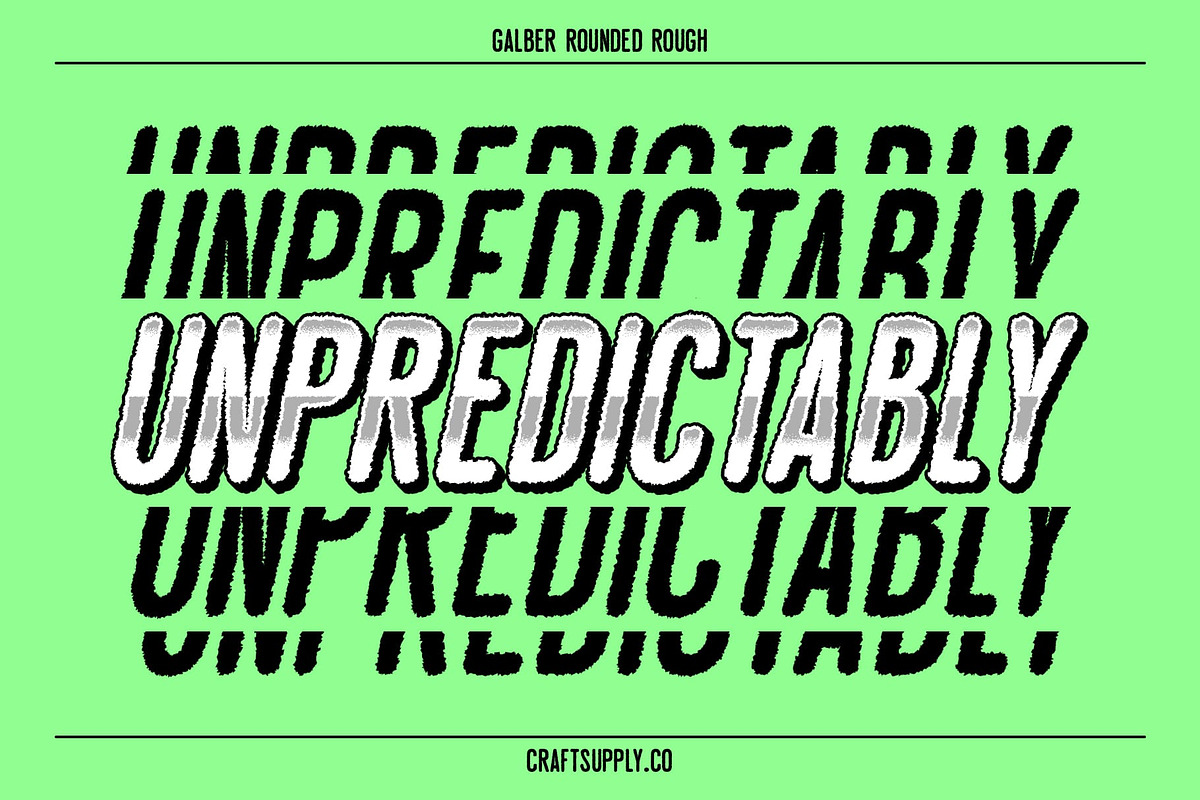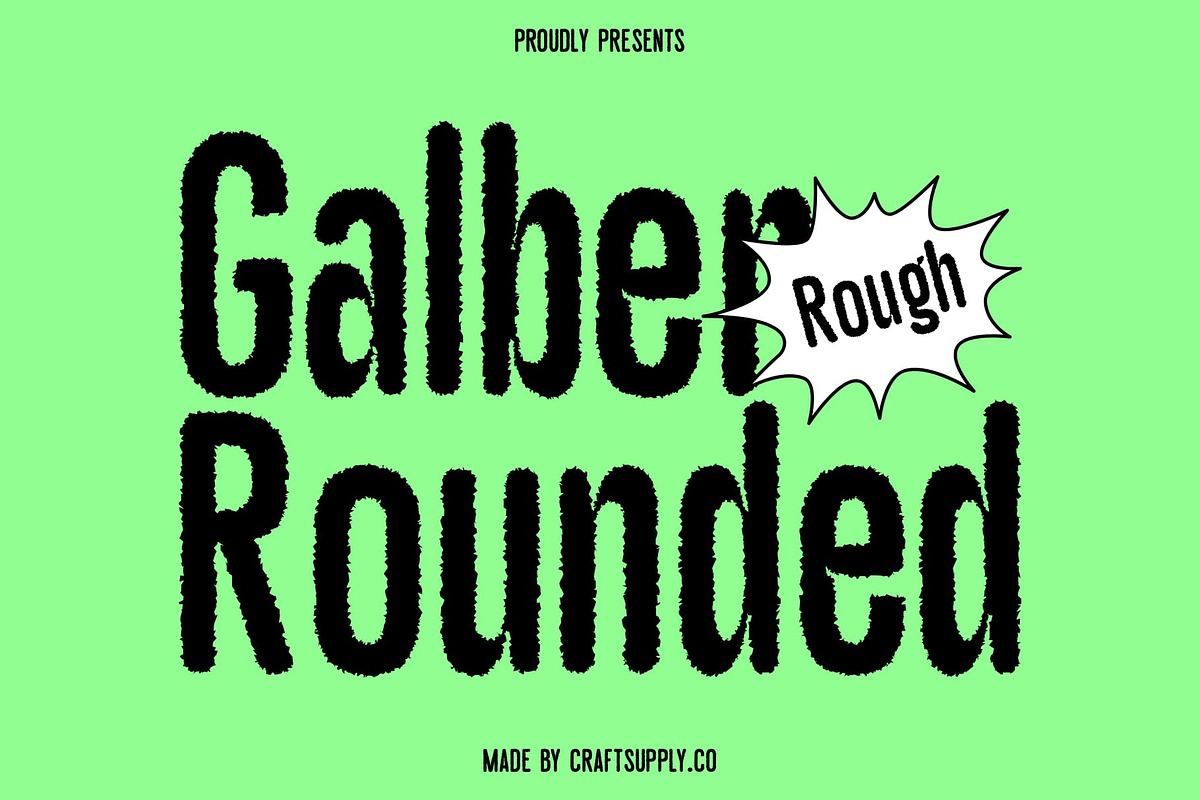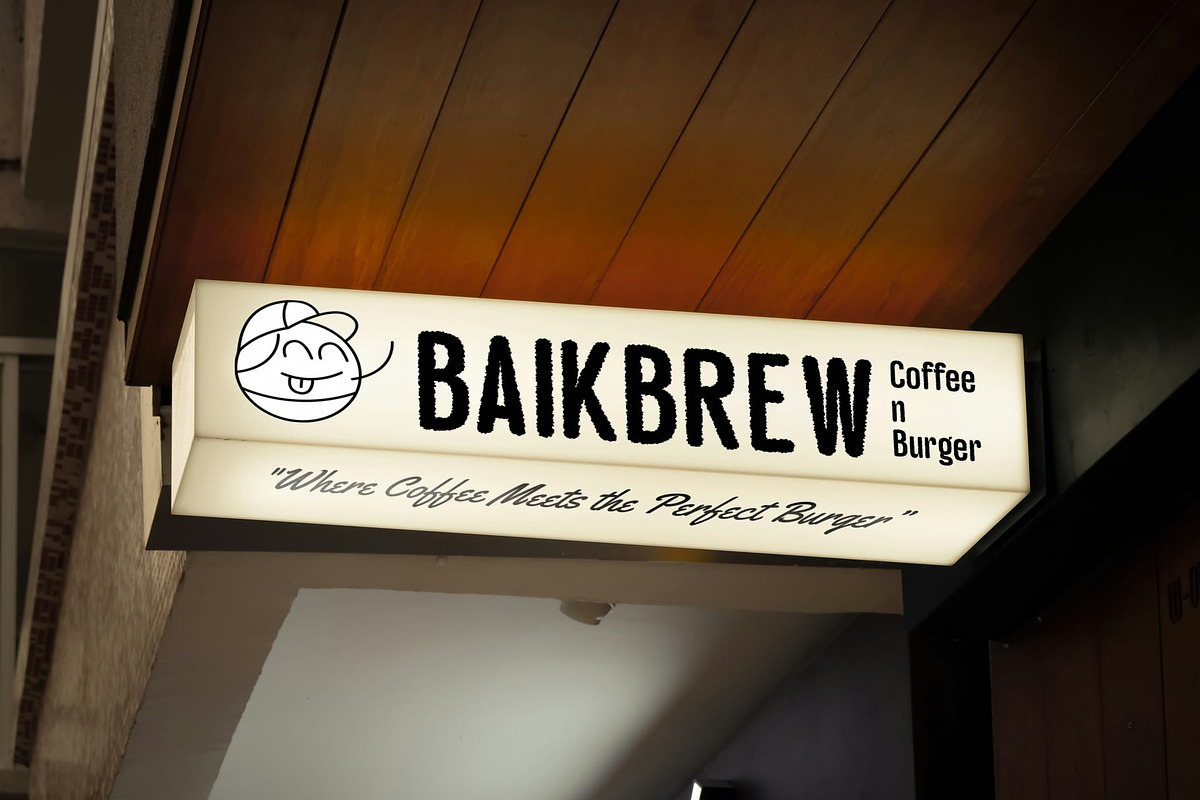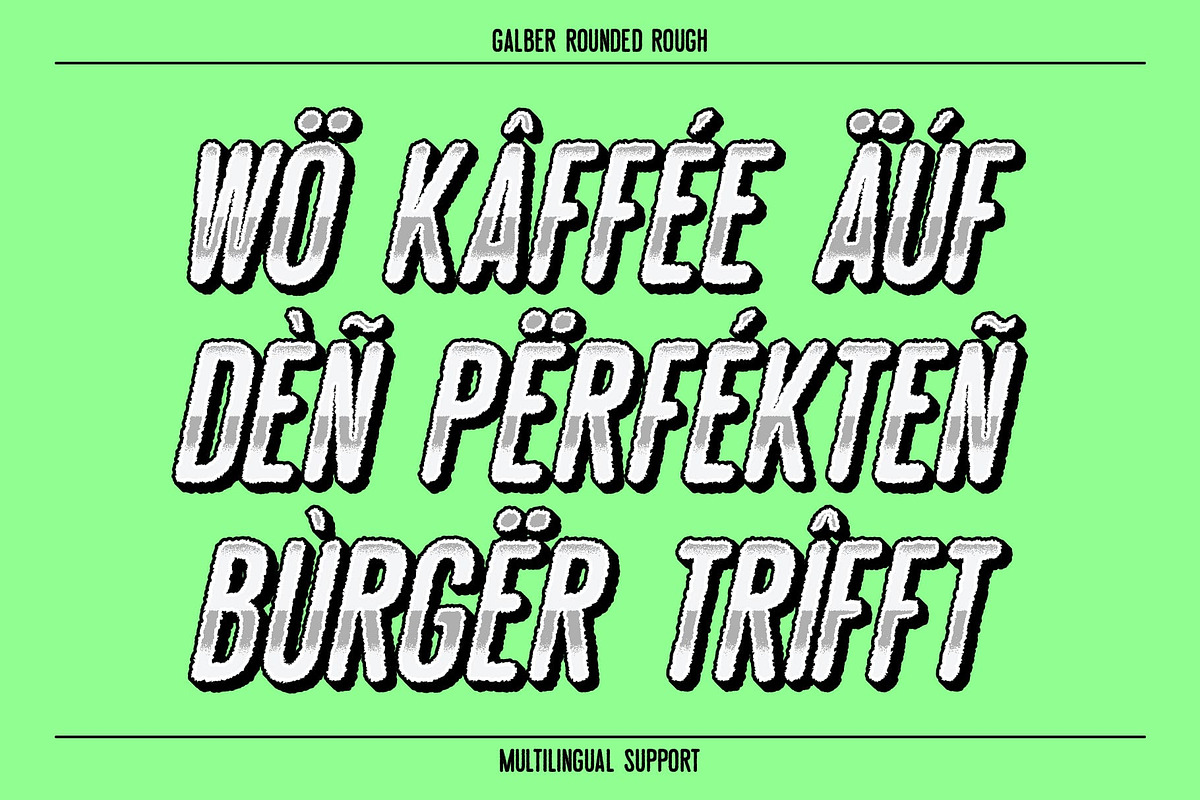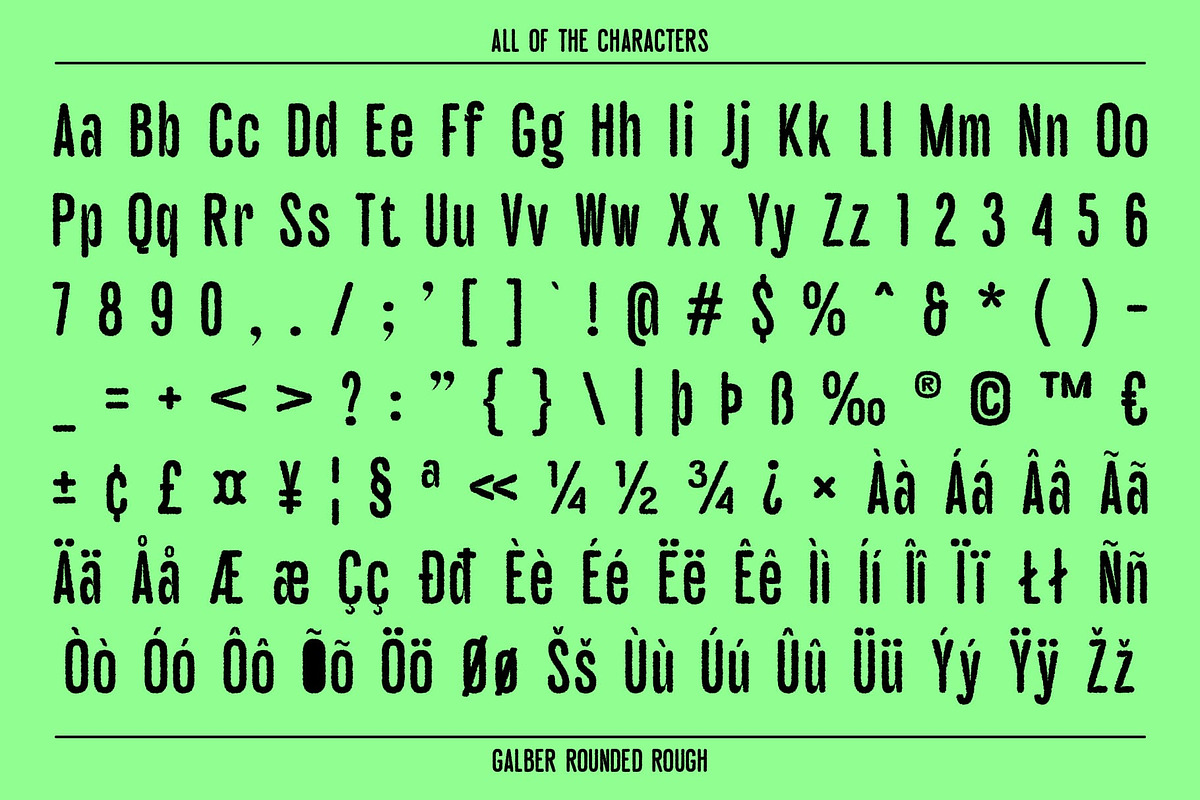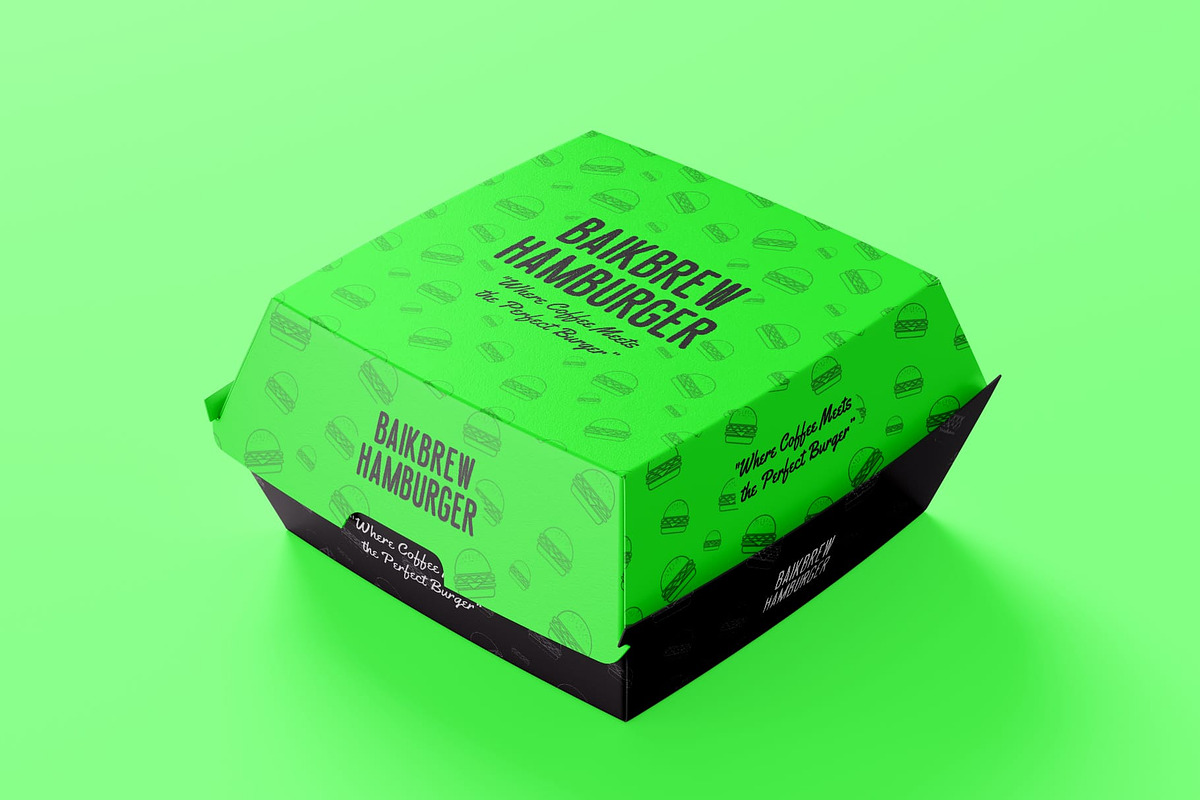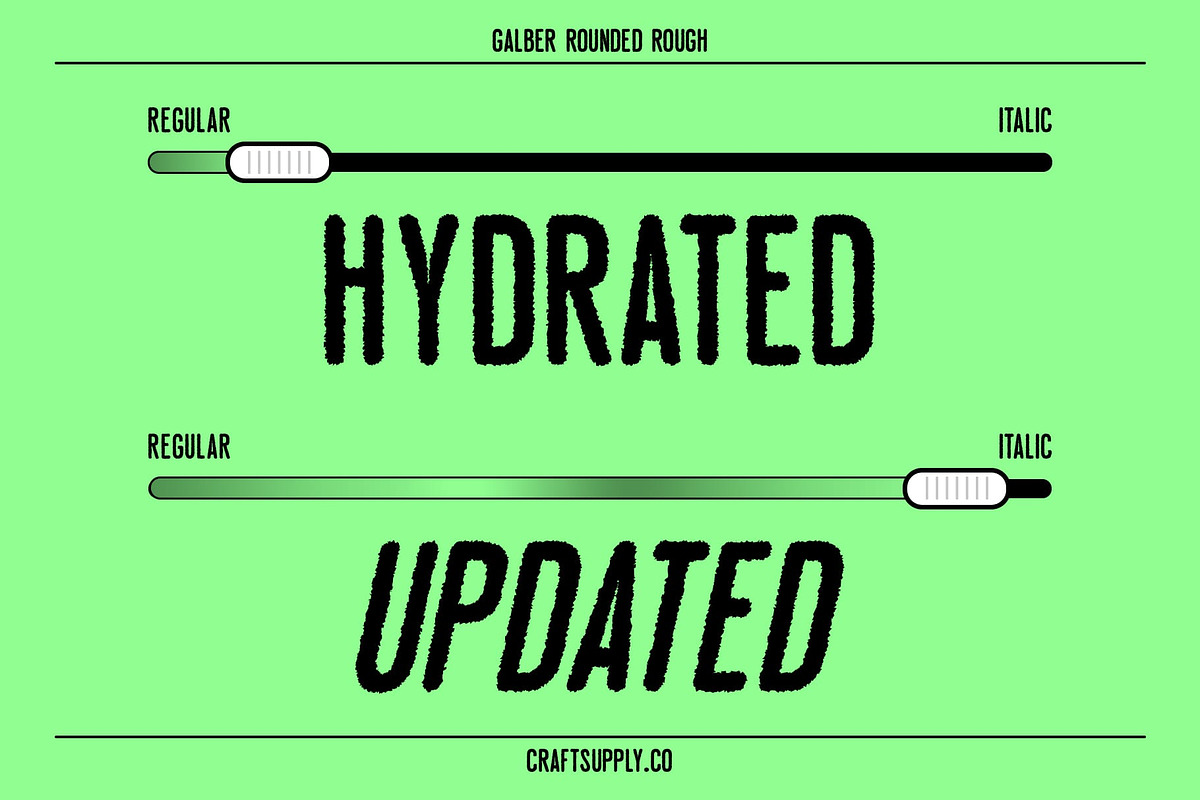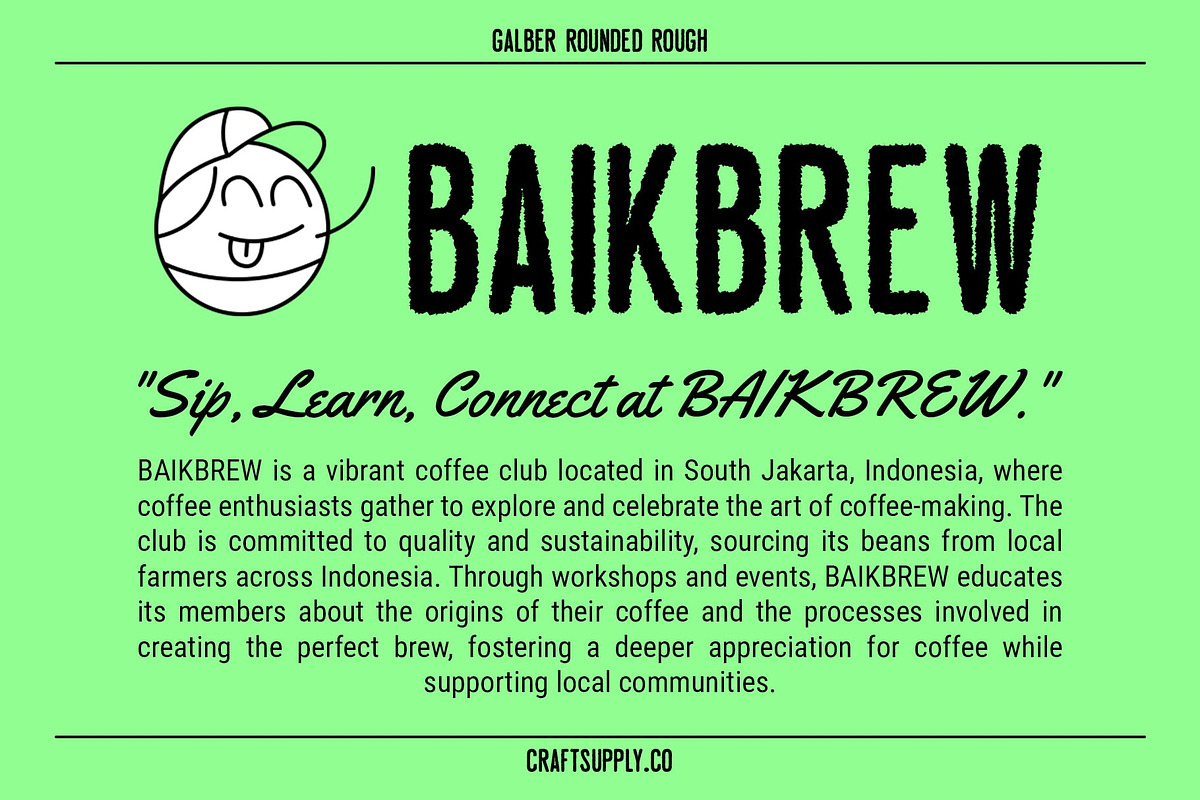
Galber Rounded Rough
Galber Rounded Rough Font: Stylish Sans-Serif with Textured Sophistication
Slim, Rounded Form with Textured Character Galber Rounded Rough is a contemporary sans-serif font that masterfully blends a condensed, rounded design with a rough effect, creating a distinctive and stylish appearance. The slim, rounded letterforms lend a sense of modernity and softness, while the rough texture adds a layer of unique character and visual depth. This combination results in a font that stands out with both boldness and elegance.
Space-Efficient and Visually Appealing The condensed shape of this rounded rough font maximizes space efficiency, making it ideal for projects where space is at a premium. Its modern, rounded design ensures a friendly and approachable feel, while the rough effect introduces an intriguing texture that enhances visual interest and depth. This makes the font perfect for a variety of applications, from attention-grabbing branding to eye-catching promotional materials.
Versatile for Modern and Stylish Projects Whether you’re designing a sleek brand identity, crafting engaging marketing materials, or working on any modern design project, this rounded rough font delivers a sophisticated yet distinctive look. Its combination of rounded forms and textured details offers a unique blend of modernity and style, ensuring your designs stand out with a fresh and memorable appeal.